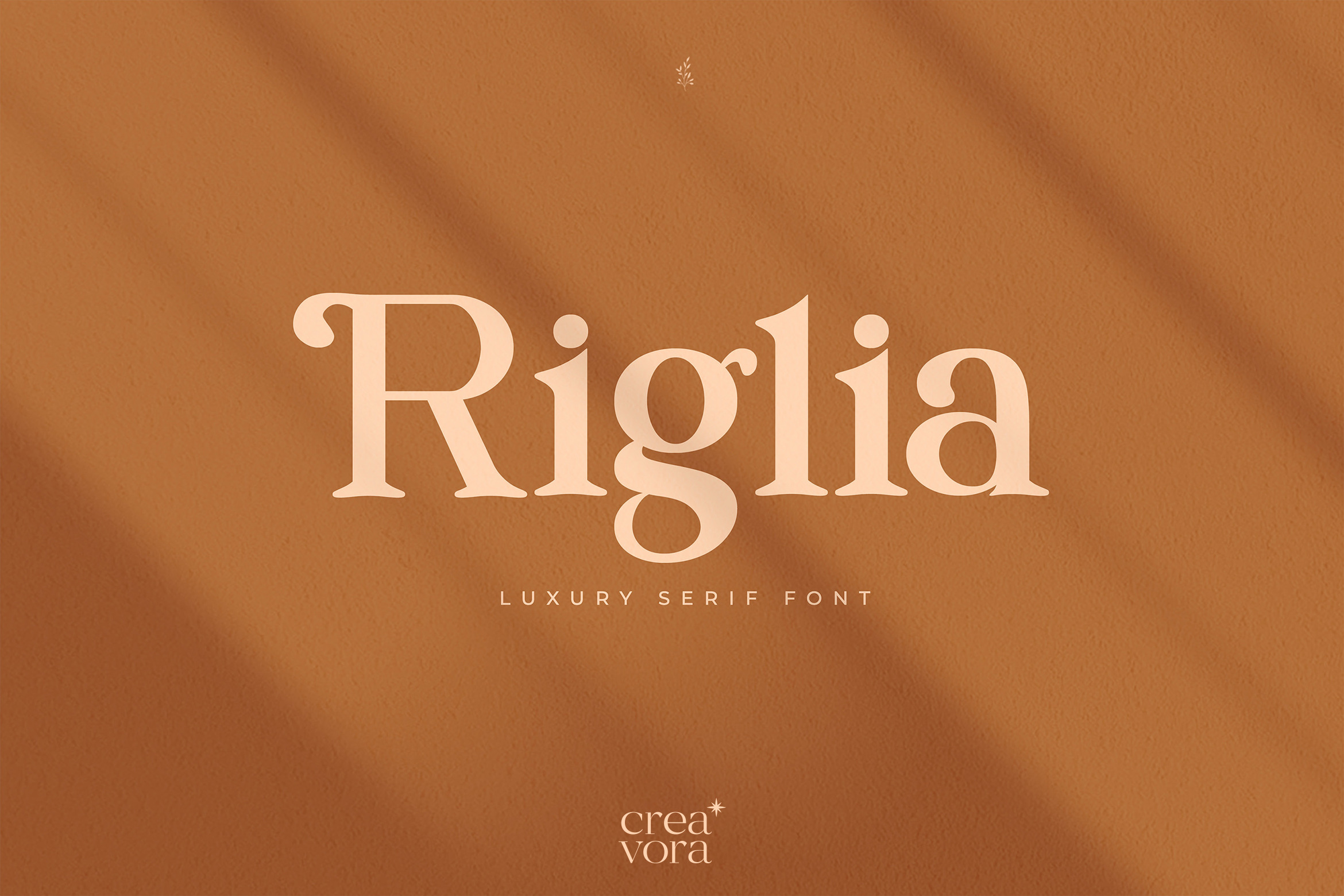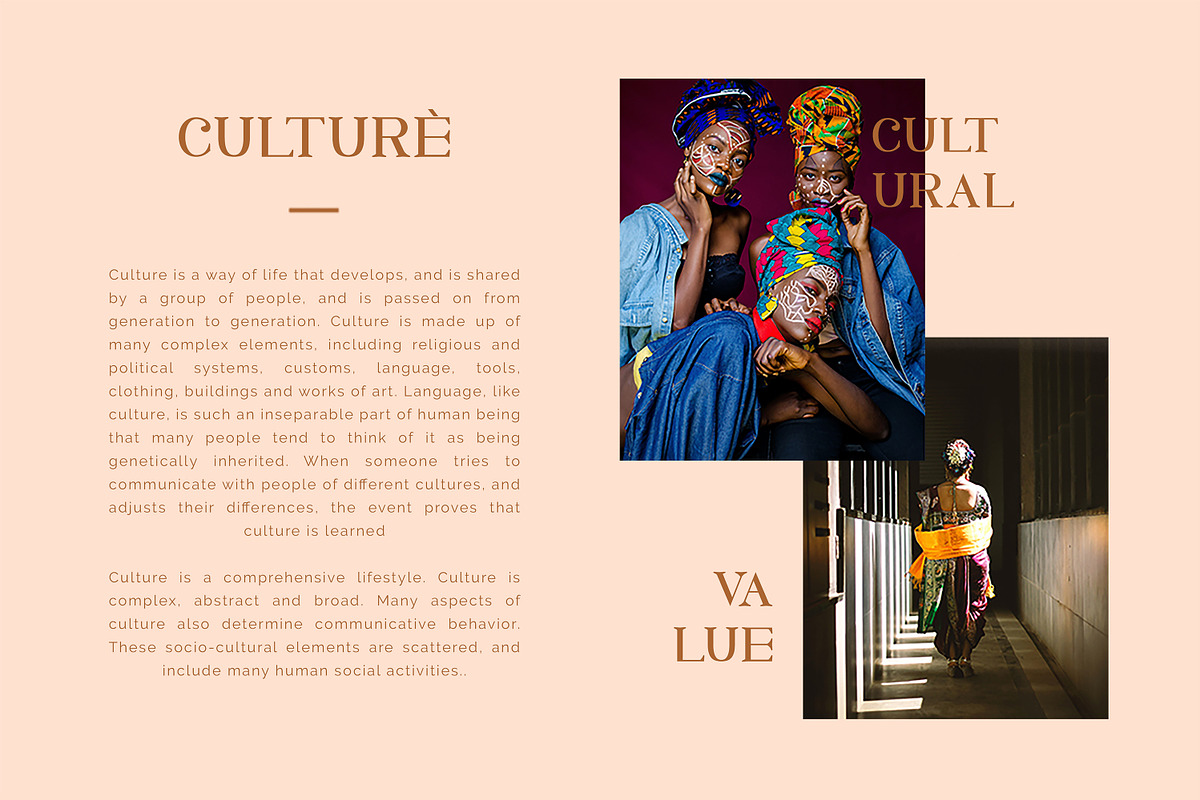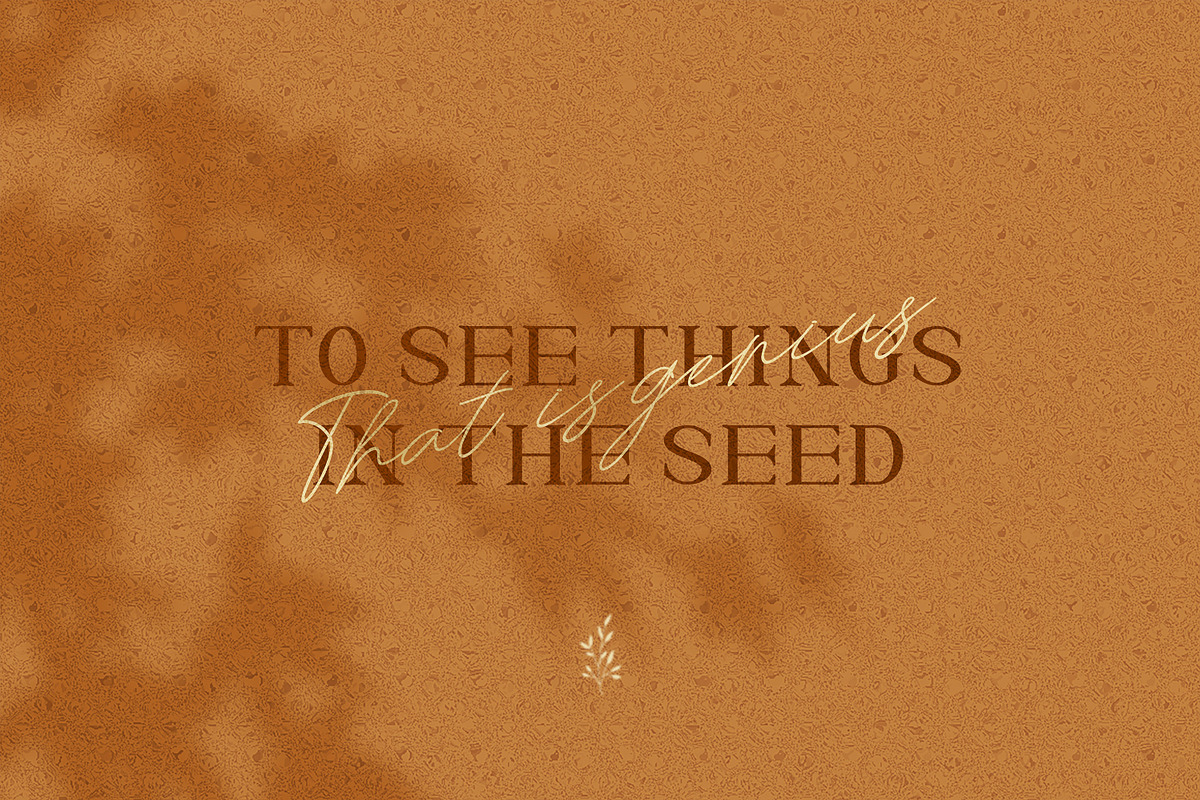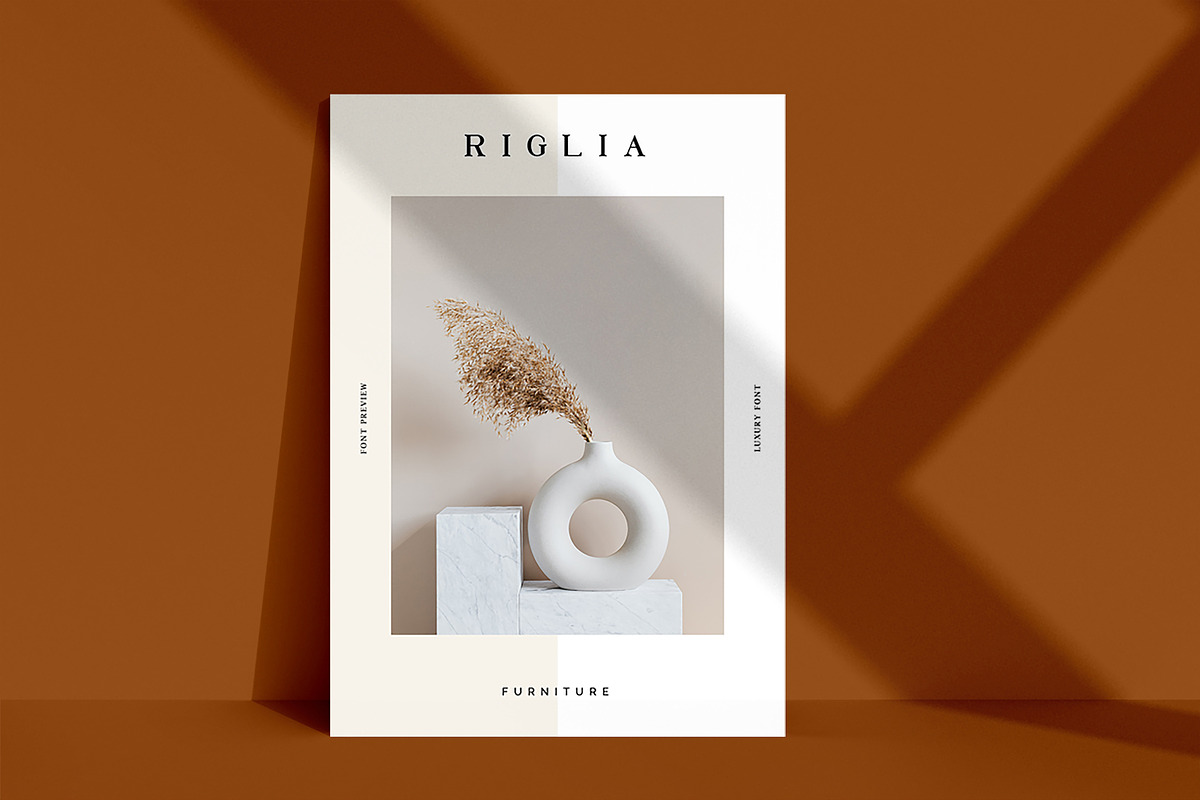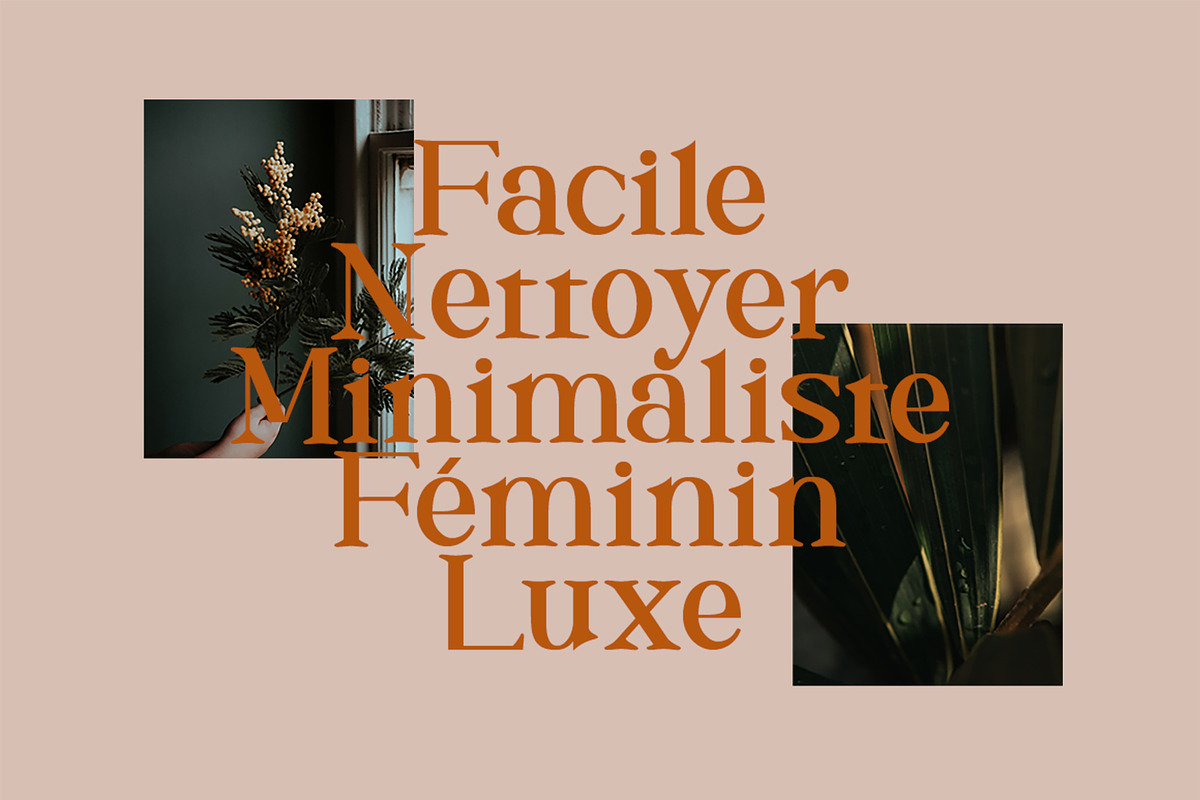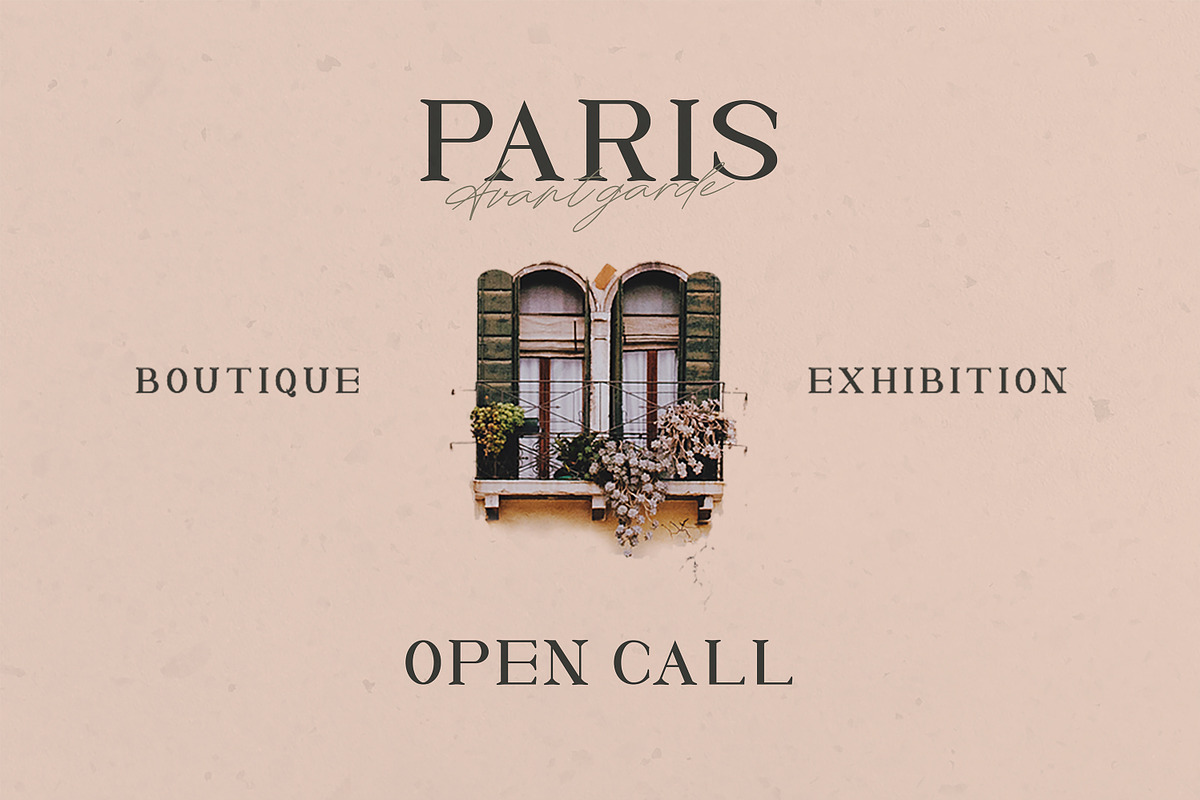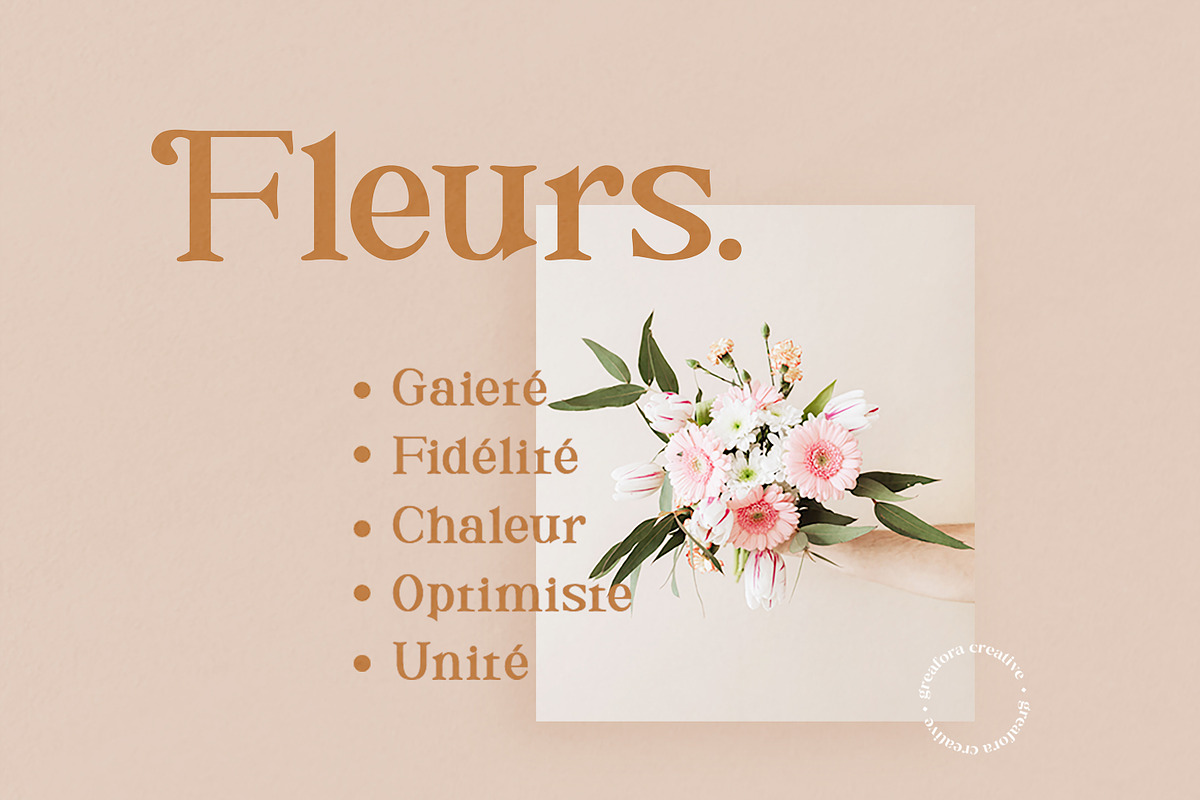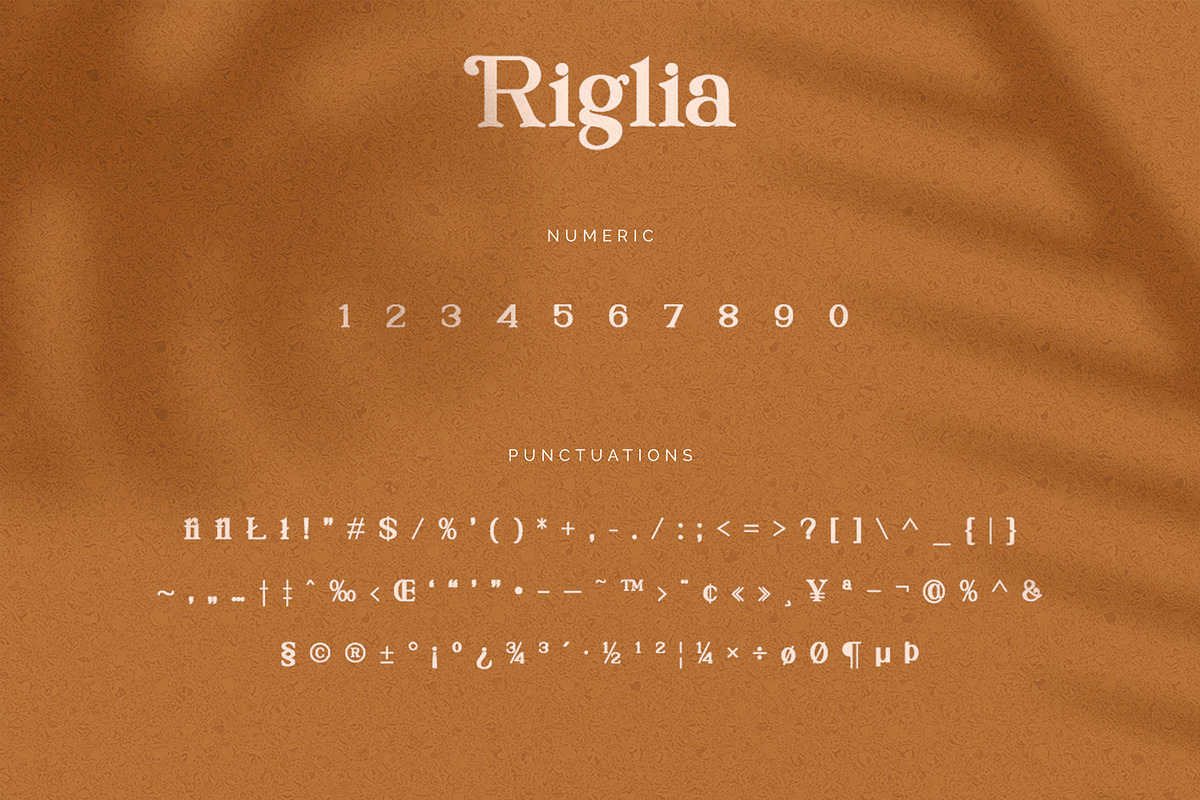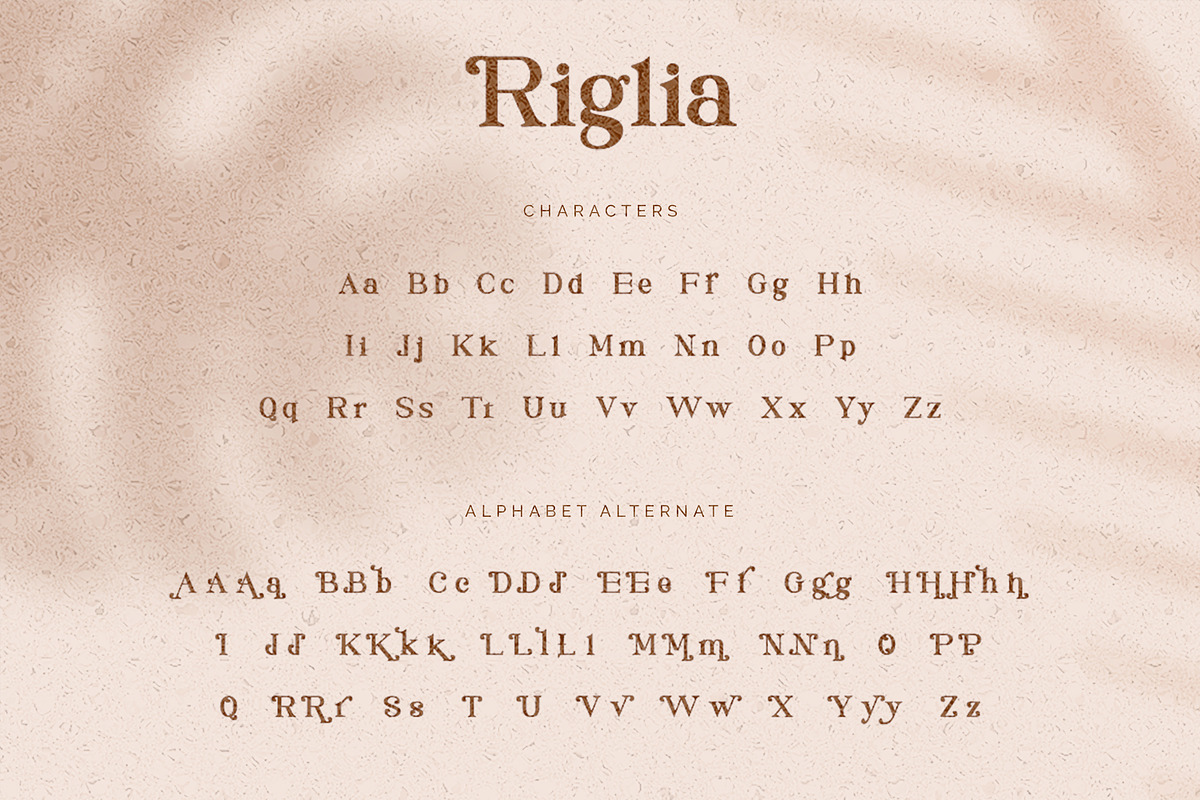
Riglia - Luxury Serif Font
Introducing Riglia - Luxury Serif Font
This font is great for designing elegant logos, quotes, magazine covers, wedding cards, invitations, and brands. The additional indentation of the alternate letters will embellish the Heading text of your worksheets and projects Download Riglia for your next special work or project today.
What's the feature included?
- Uppercase Characters
- Lowercase Characters
- Punctuation, Numerical, Ligatures
- Multilingual support for various languages including: French, German, Spanish, Portuguese, Italian, Dutch, Finnish, Swedish, and more.